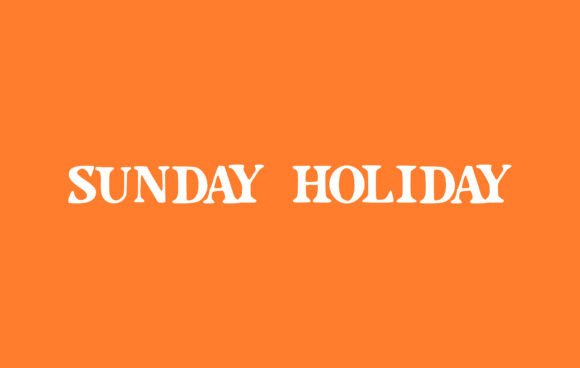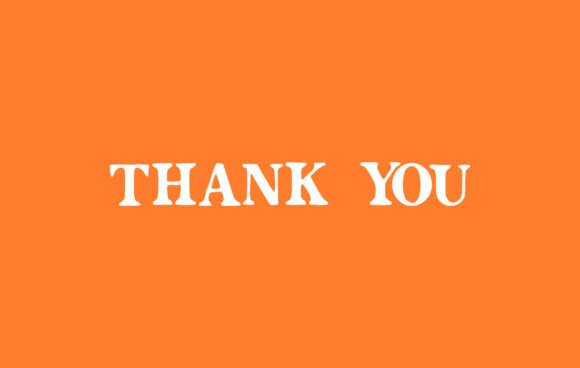
Introduction to Matters Guts Font Font
Fonts play a crucial role in design, and the Matters Guts Font font is a typeface that brings both character and versatility to any project. Whether you’re working on a branding project, a website, or a print design, the Matters Guts Font font offers a unique style that can elevate your work.
Matters Guts is a sweet and friendly font.
Key Features of Matters Guts Font Font
Why Choose Matters Guts Font Font?
The Matters Guts Font font is more than just a typeface – it’s a design tool that helps you communicate your message with style and clarity. Its unique character set and versatile design make it suitable for a wide range of applications, from elegant invitations to bold headlines.
With its carefully crafted letterforms and balanced proportions, the Matters Guts Font font ensures readability and visual appeal across all mediums.
What makes Matters Guts Font font special?
The Matters Guts Font font stands out with its unique design, exceptional readability, and versatility across various design applications.